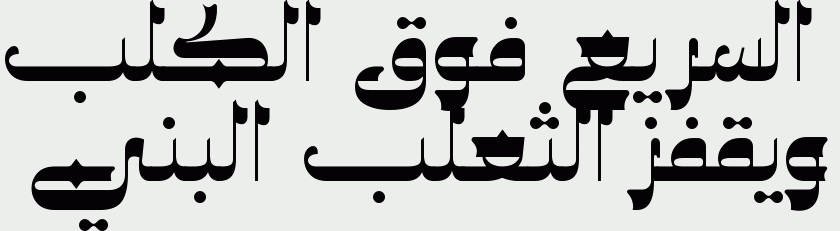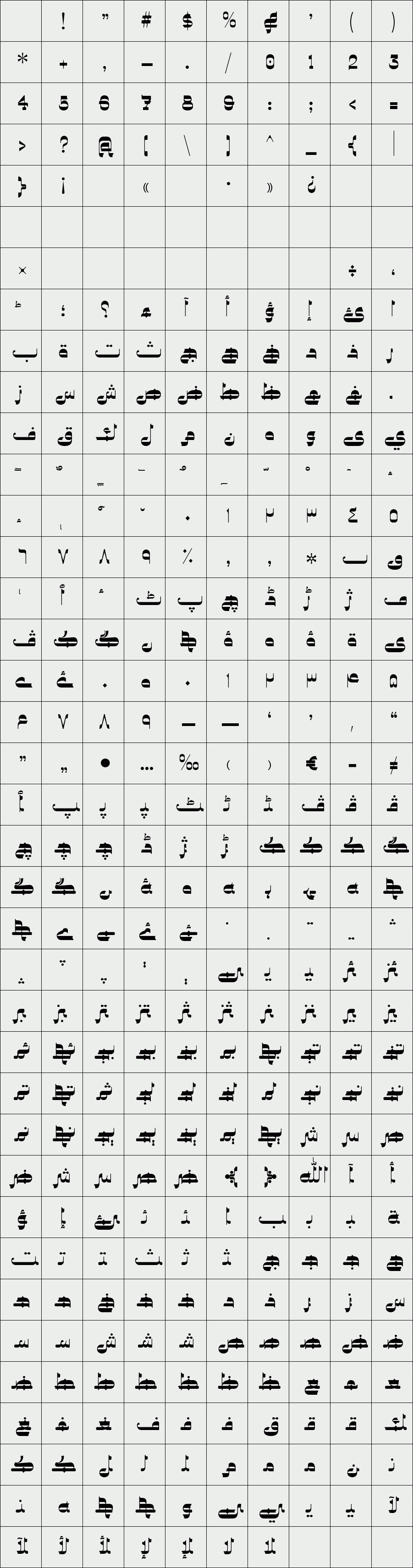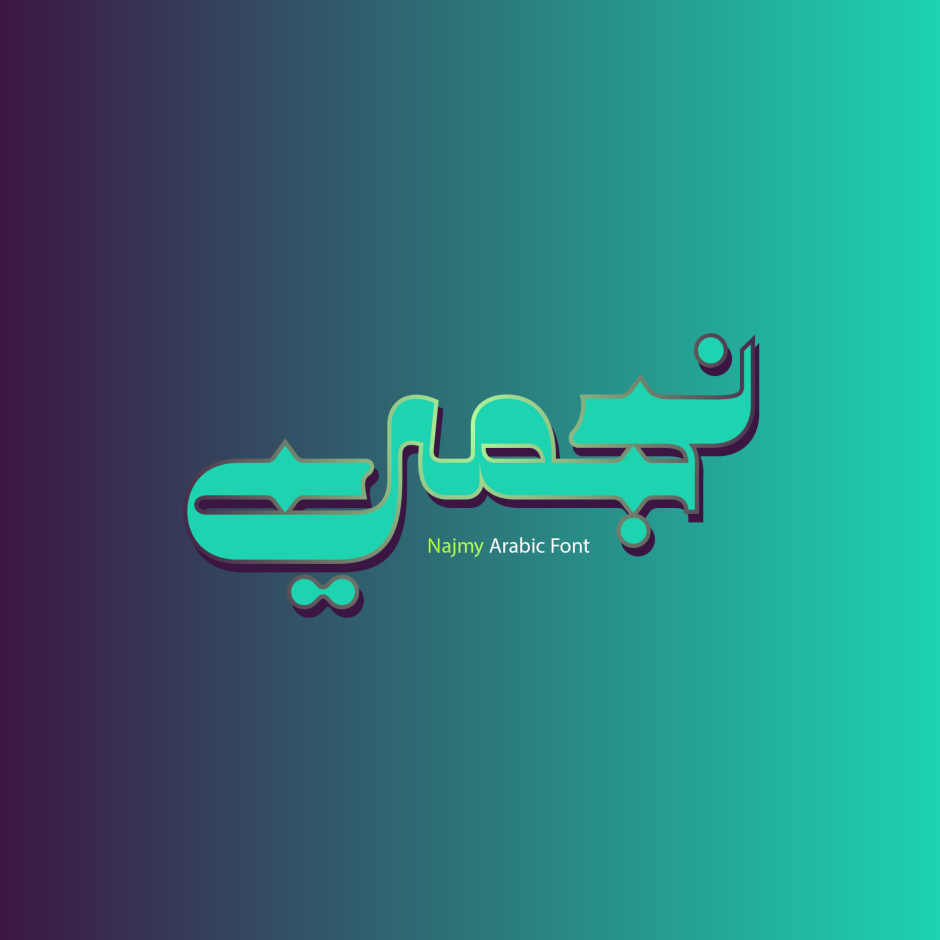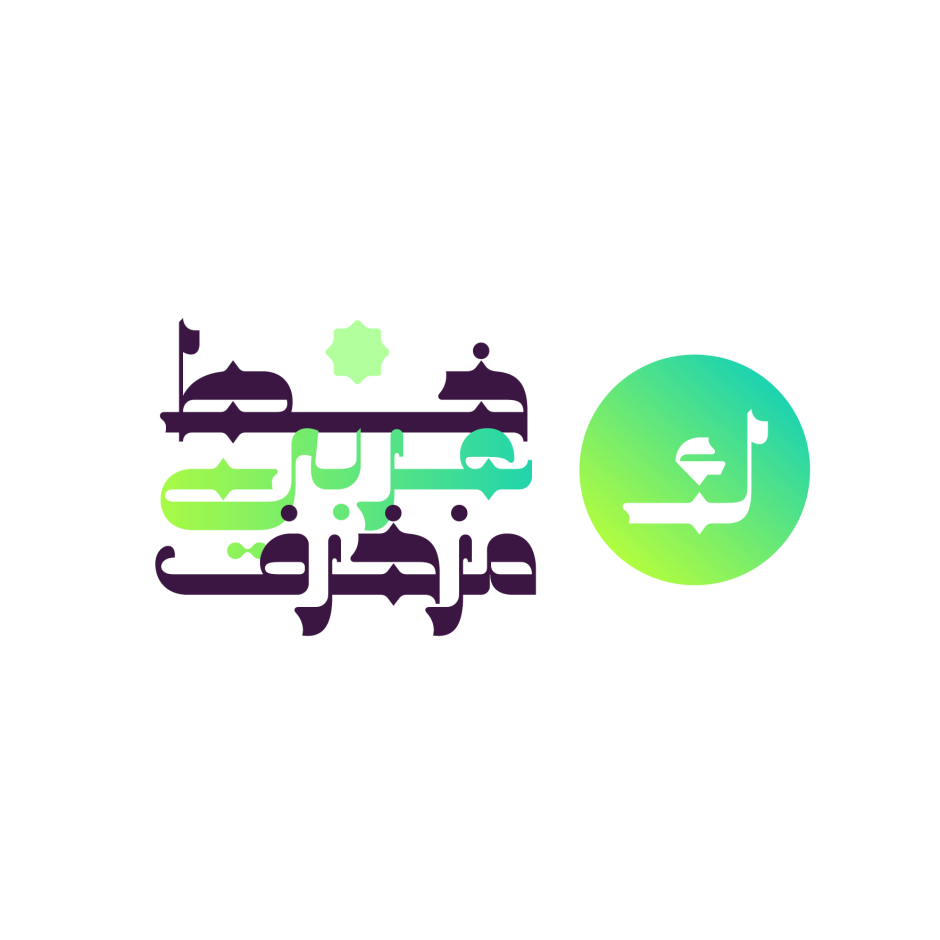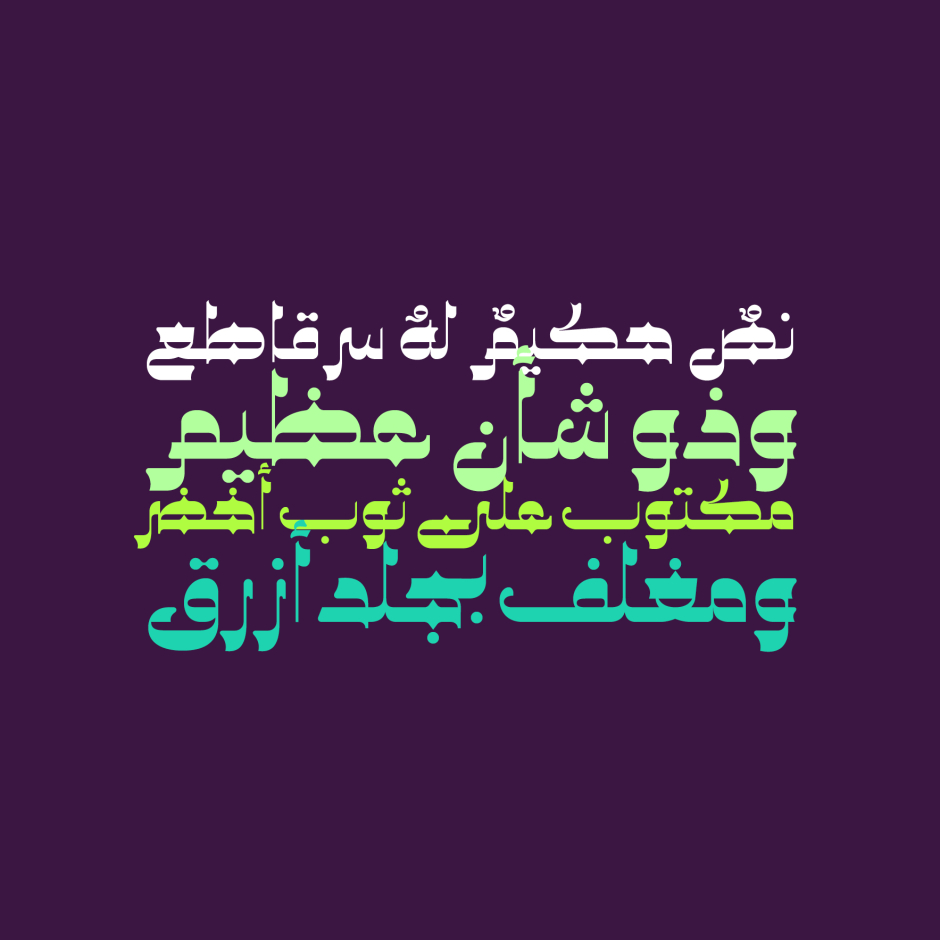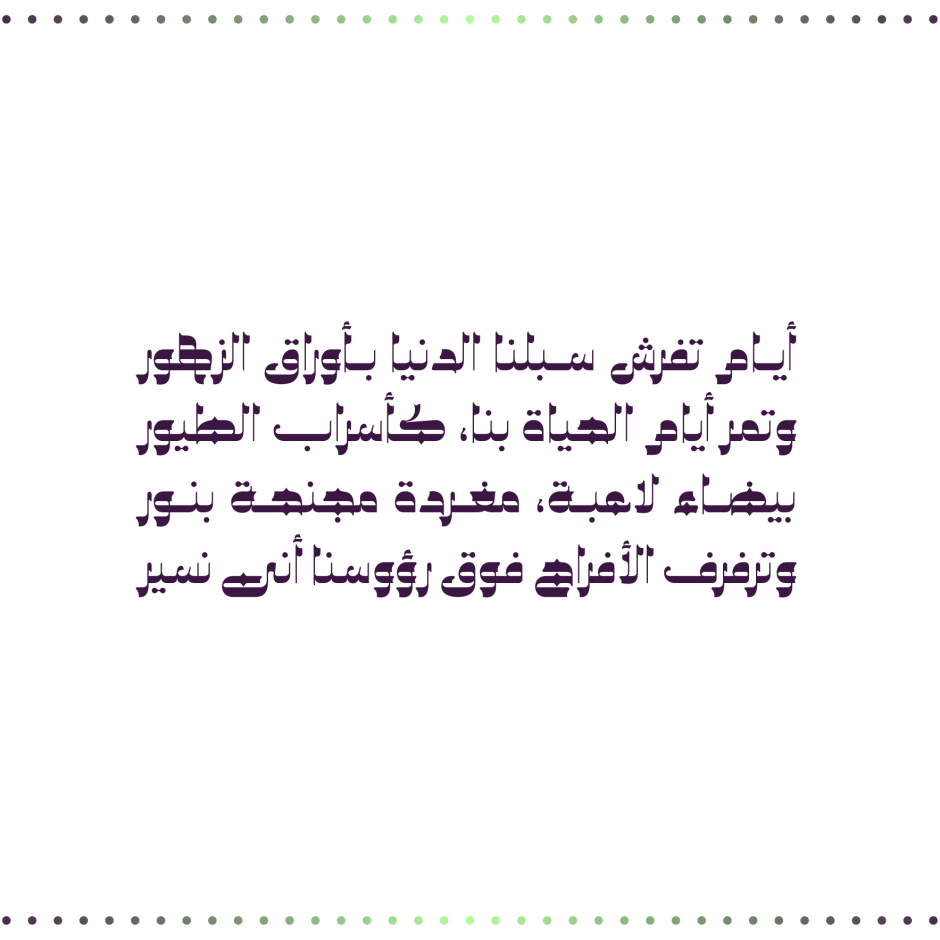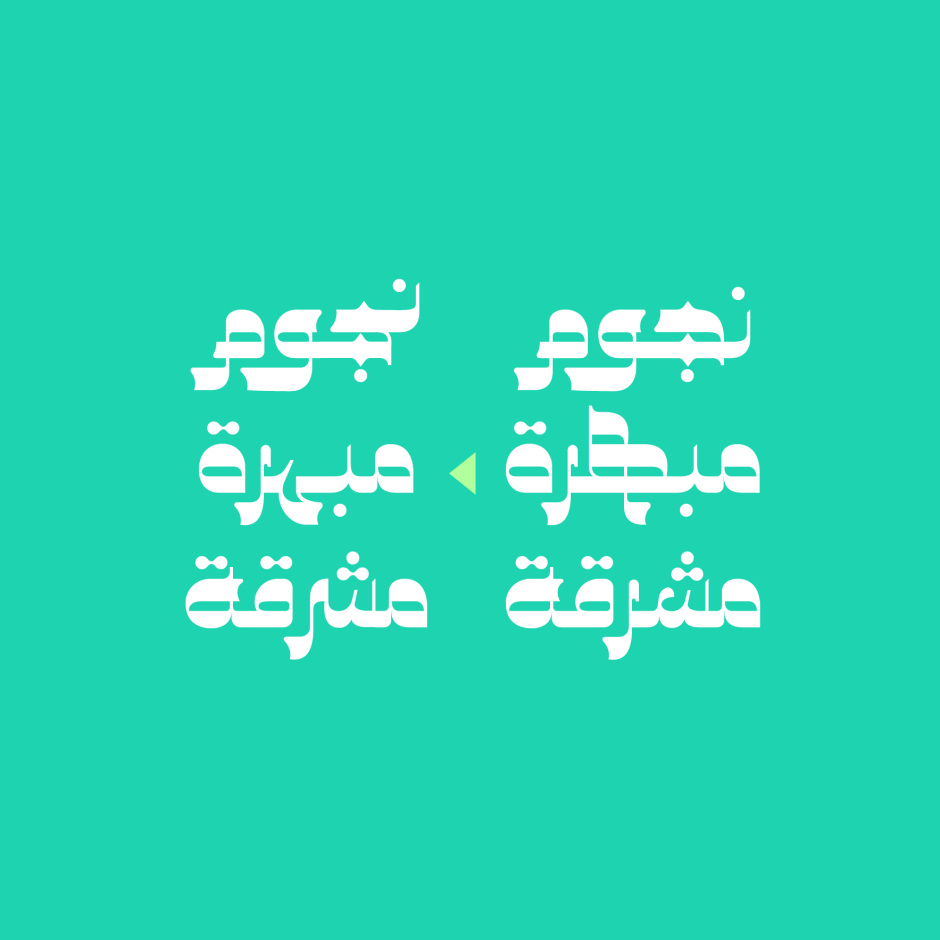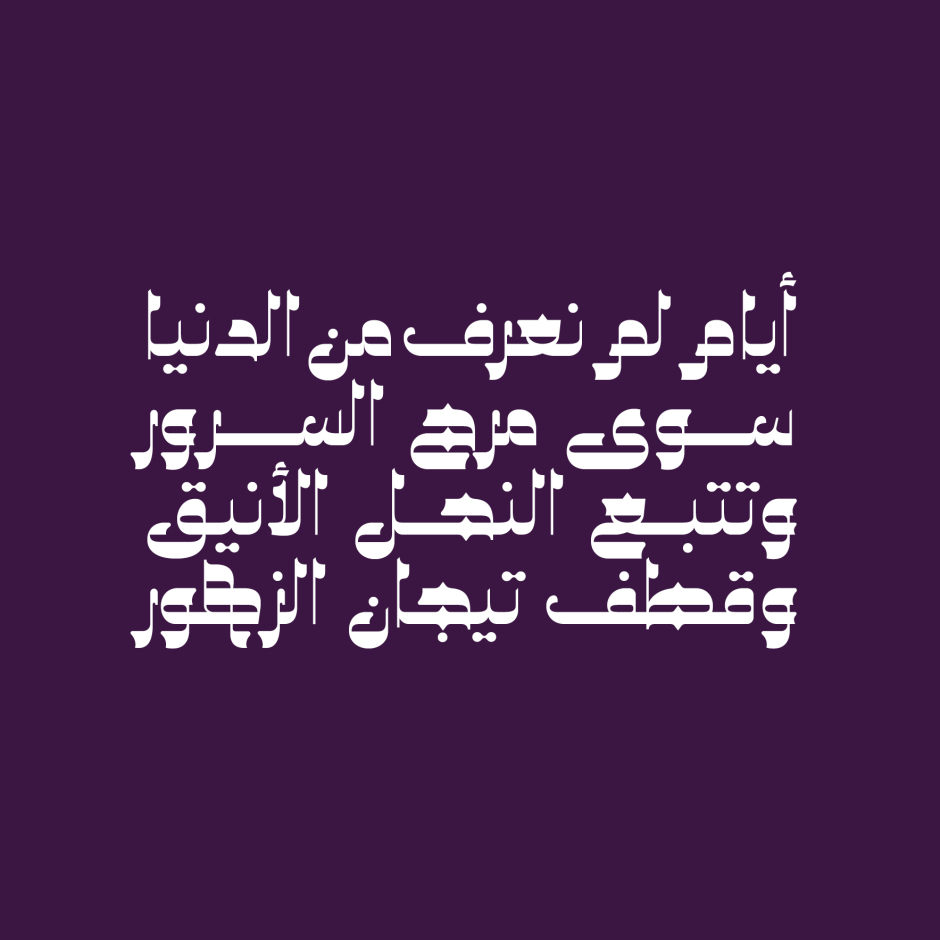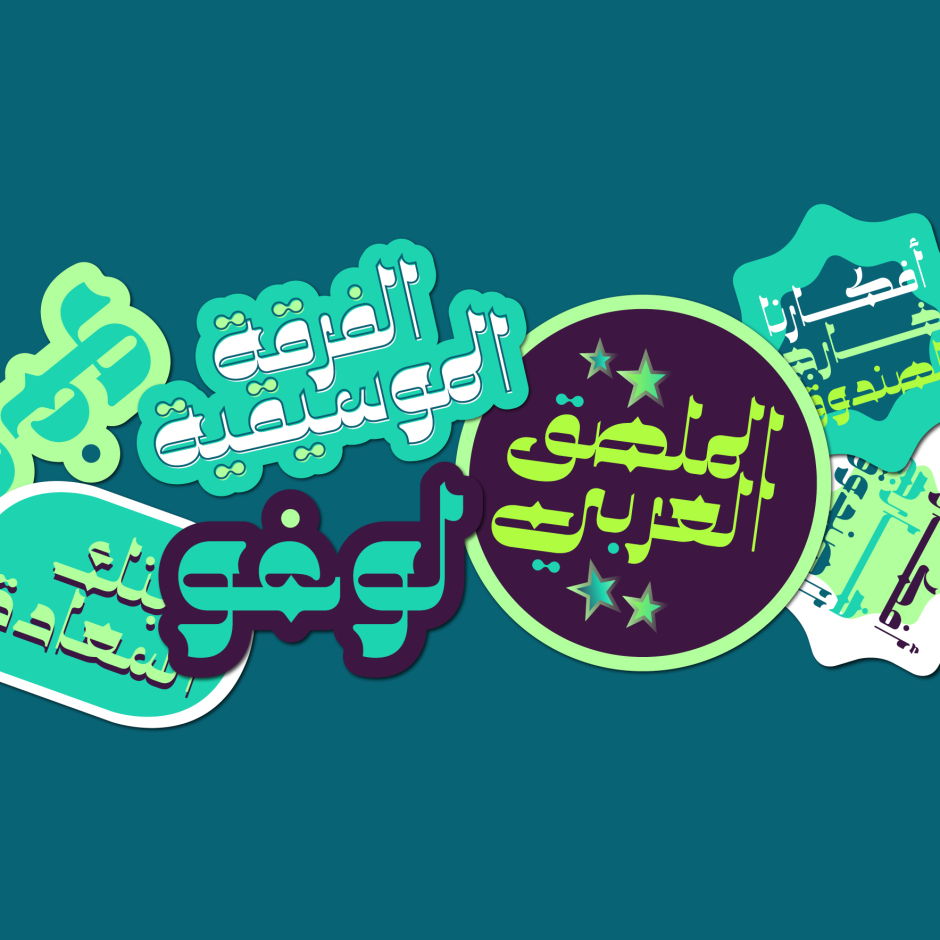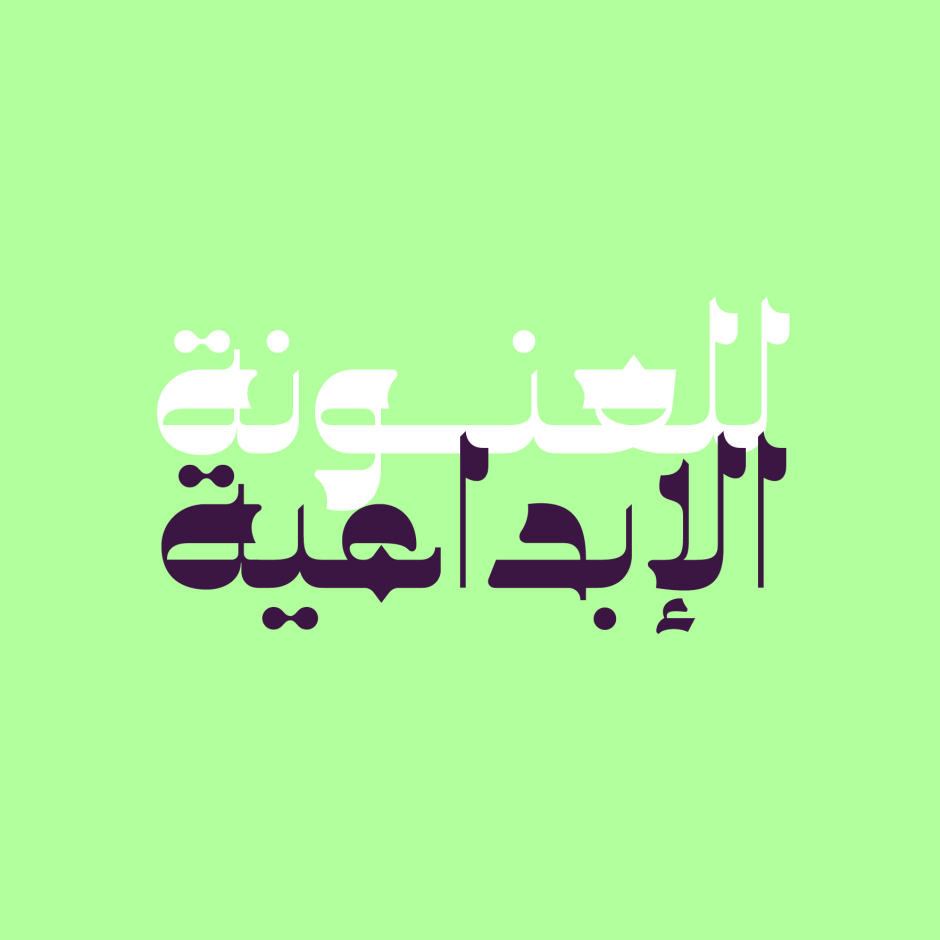
Najmy
Najmy, which is the Arabic word for ‘stellar’, is an Arabic display font with a decorative letterform design. The font is suitable for branding, creative titling and typographic compositions. Najmy supports Windows, Mac and mobile applications.